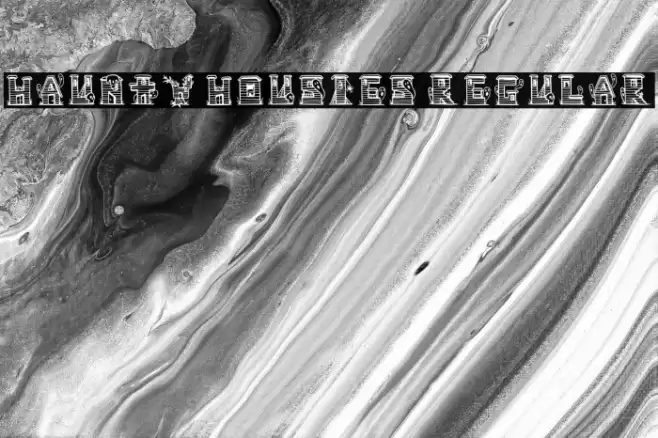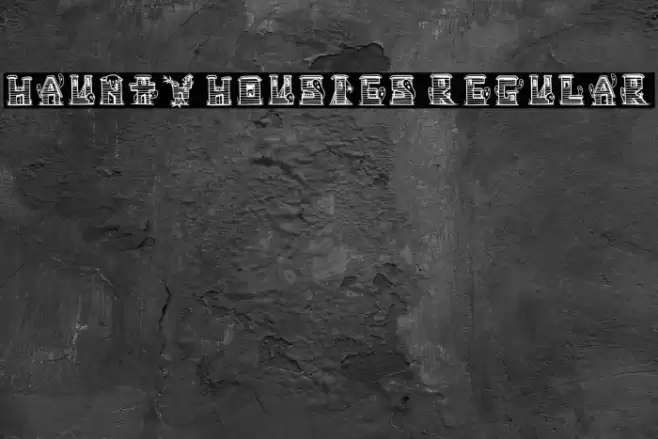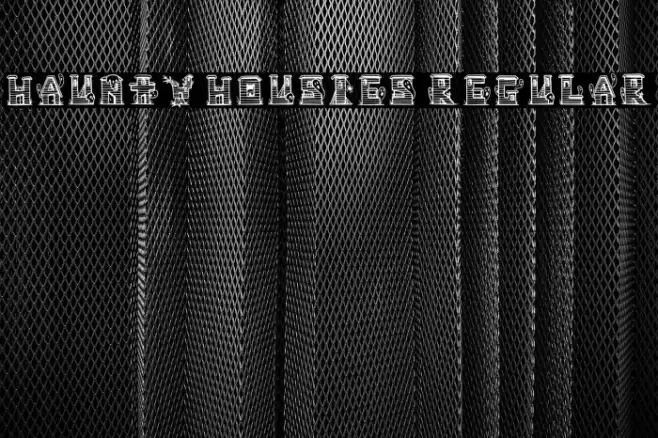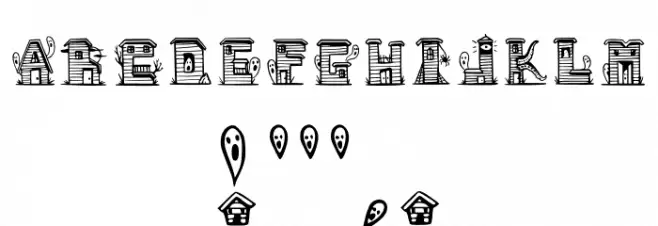
Haunty Housies Regular Font
Haunty Housies Regular Description
This font is a playful and spooky decorative typeface that features letters designed to resemble haunted houses. Each character is intricately detailed with elements like windows, doors, and ghostly figures, creating a whimsical yet eerie atmosphere. The design is highly thematic, making it ideal for Halloween or horror-themed projects. The font maintains a consistent line weight throughout, with a medium contrast in stroke thickness. The characters are tightly spaced, enhancing the compact and cohesive look of the haunted house theme. This font is perfect for adding a touch of fun and fright to any design.
A decorative font with letters styled as haunted houses, perfect for spooky themes from Regular fonts.
- Proposed Projects: Ideal for Halloween invitations, horror movie posters, themed party decorations, and spooky event branding.
- Character Spacing: Tight